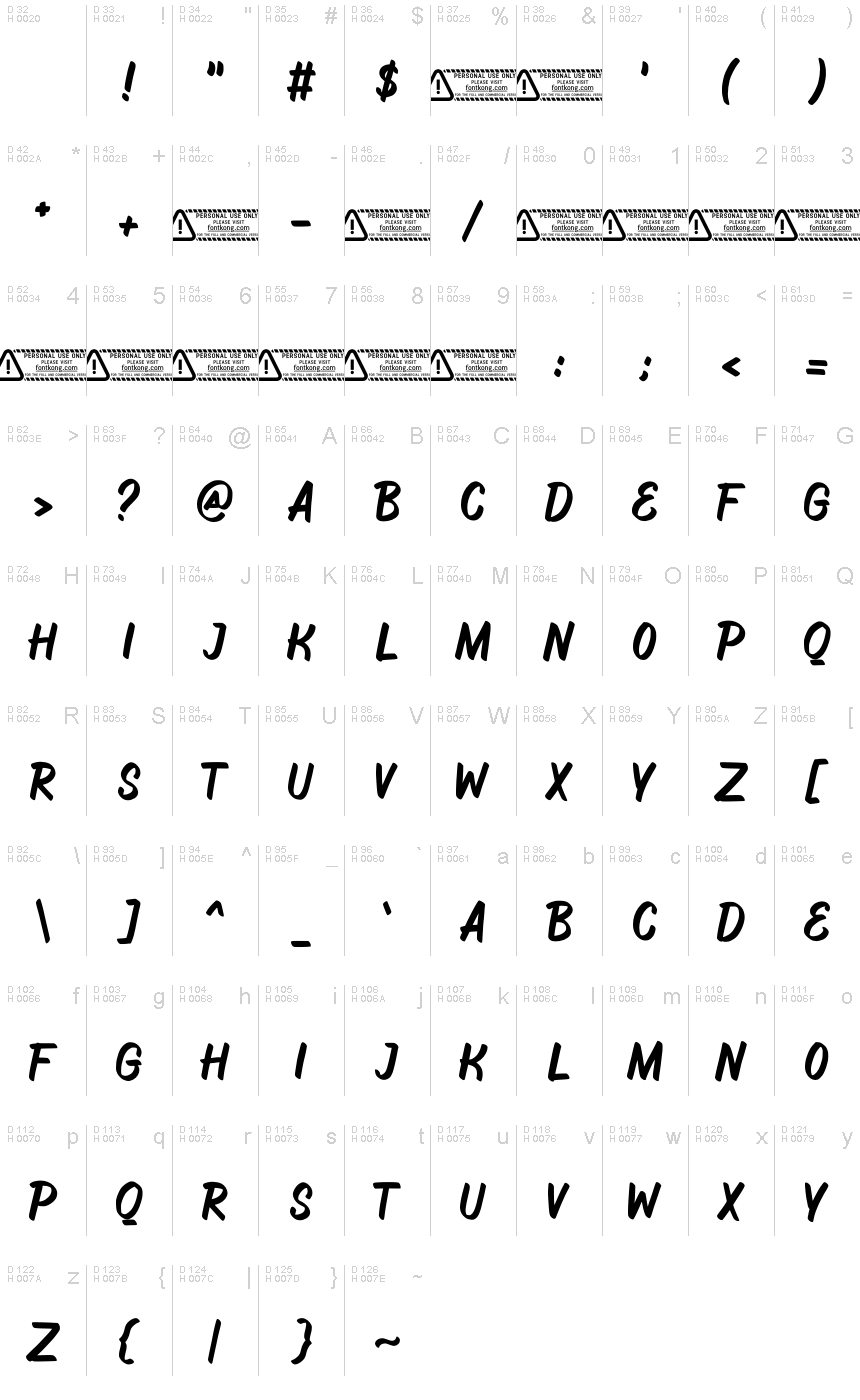
Camprite font was designed by Kong Font. This font draws its roots from hand drawn typefaces and doodles, but it's made extremely bold for the contemporary writing patterns. Playful and casual Camprite features a moderate contrast with rounded edges, exuding an energetic mood that makes it stand out. The uniform stroke width adds to its charm, making it adaptable yet stylish.
It is unique in displaying handwriting quality through bold sans serif letters! Use this font to elevate your headlines and make fun or quirky themes; the energy translates effortlessly into digital invitations, clever pairing for retro-inspired designs such as posters/comics/ads too!